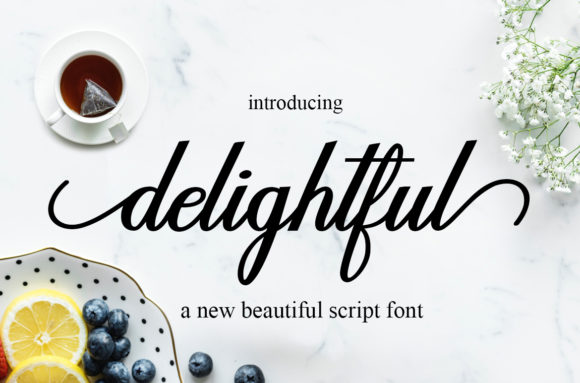
Looking for a script font that stands out from the crowd? Look no further than Delightful Script Font! Created by Mrletters, this font family is a perfect choice for anyone looking for a fresh and modern calligraphy style that is both elegant and playful.
With its decorative characters and handmade feel, Delightful is perfect for a wide variety of projects. Whether you're designing invitations, greeting cards, or even creating a new brand identity, this font is sure to make a lasting impression.
One of the best things about Delightful is its versatility. While it works great for formal occasions like weddings and galas, it can also be used to add a touch of whimsy to more casual designs like posters and social media graphics. No matter how you use it, Delightful is sure to elevate your design and make it stand out from the crowd.